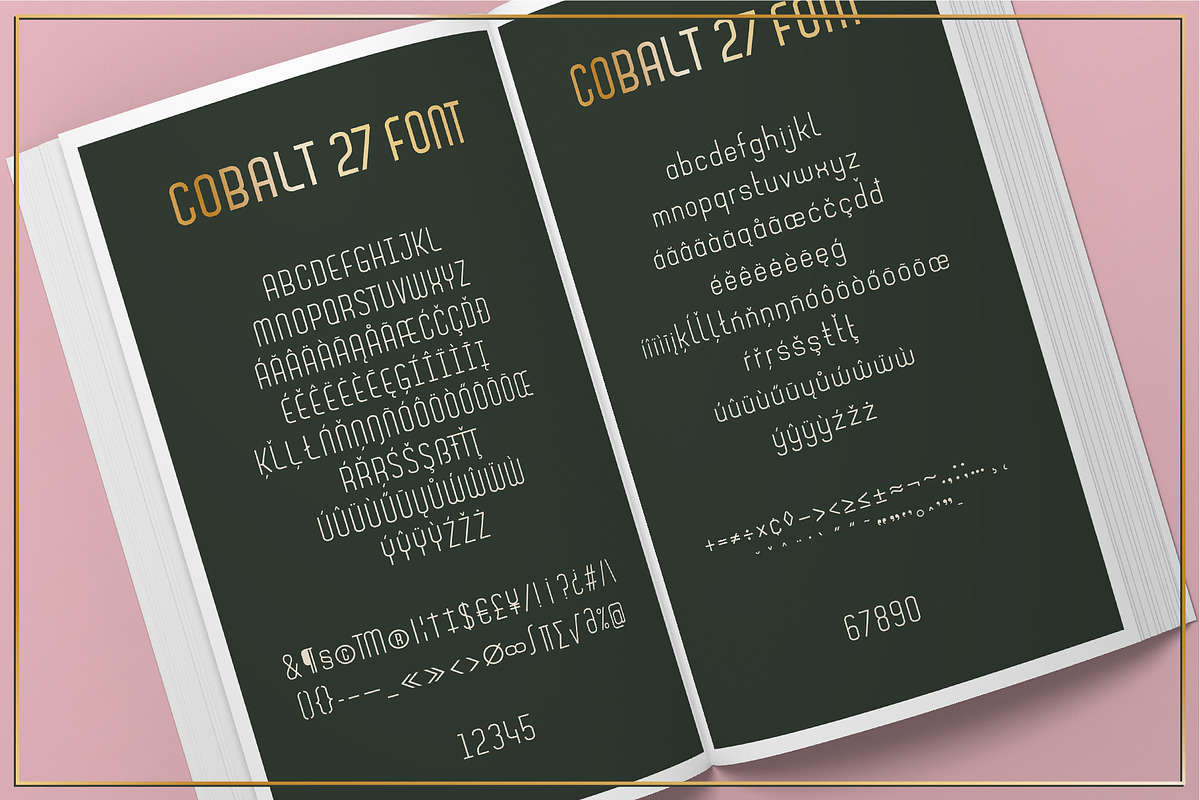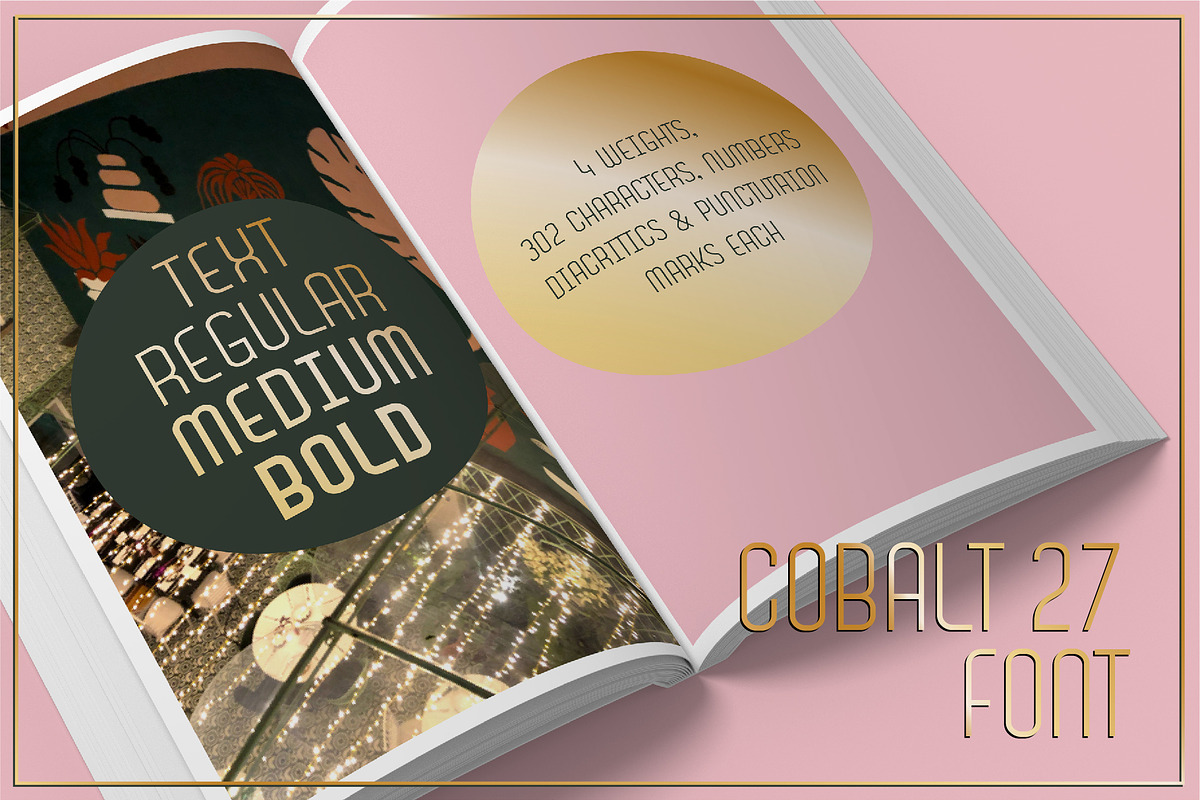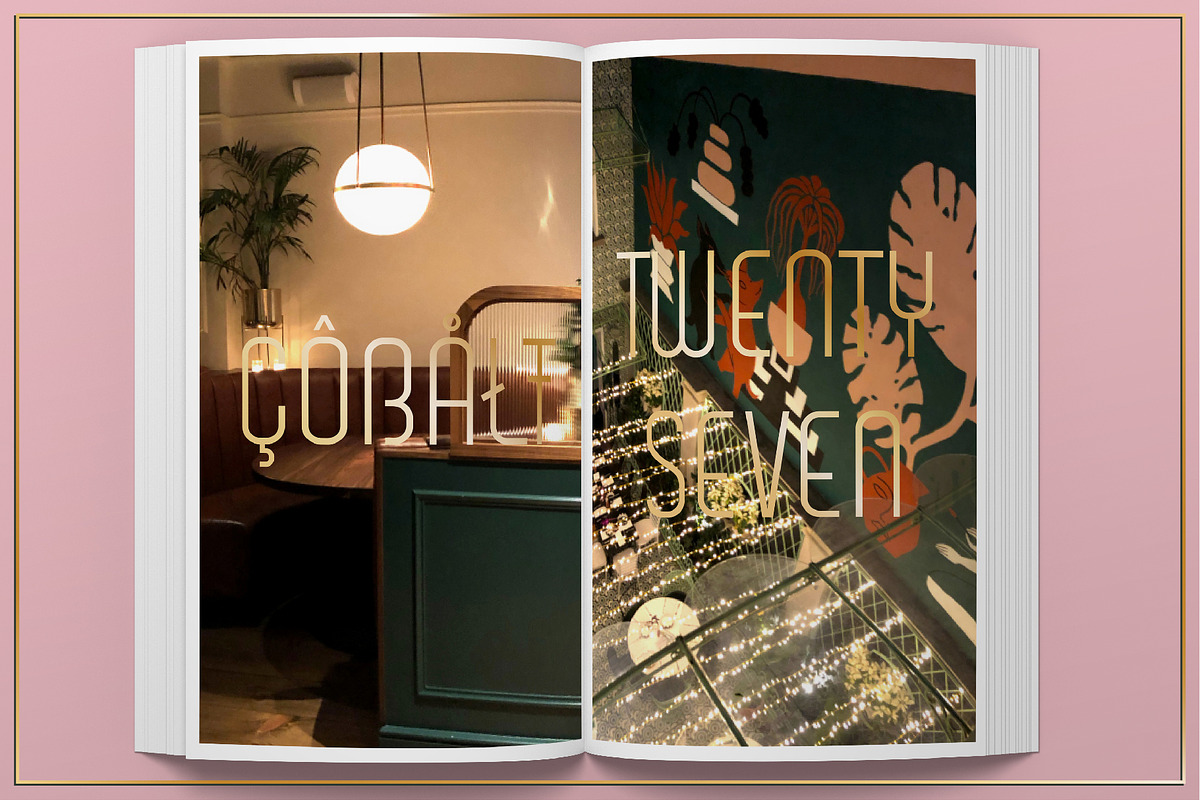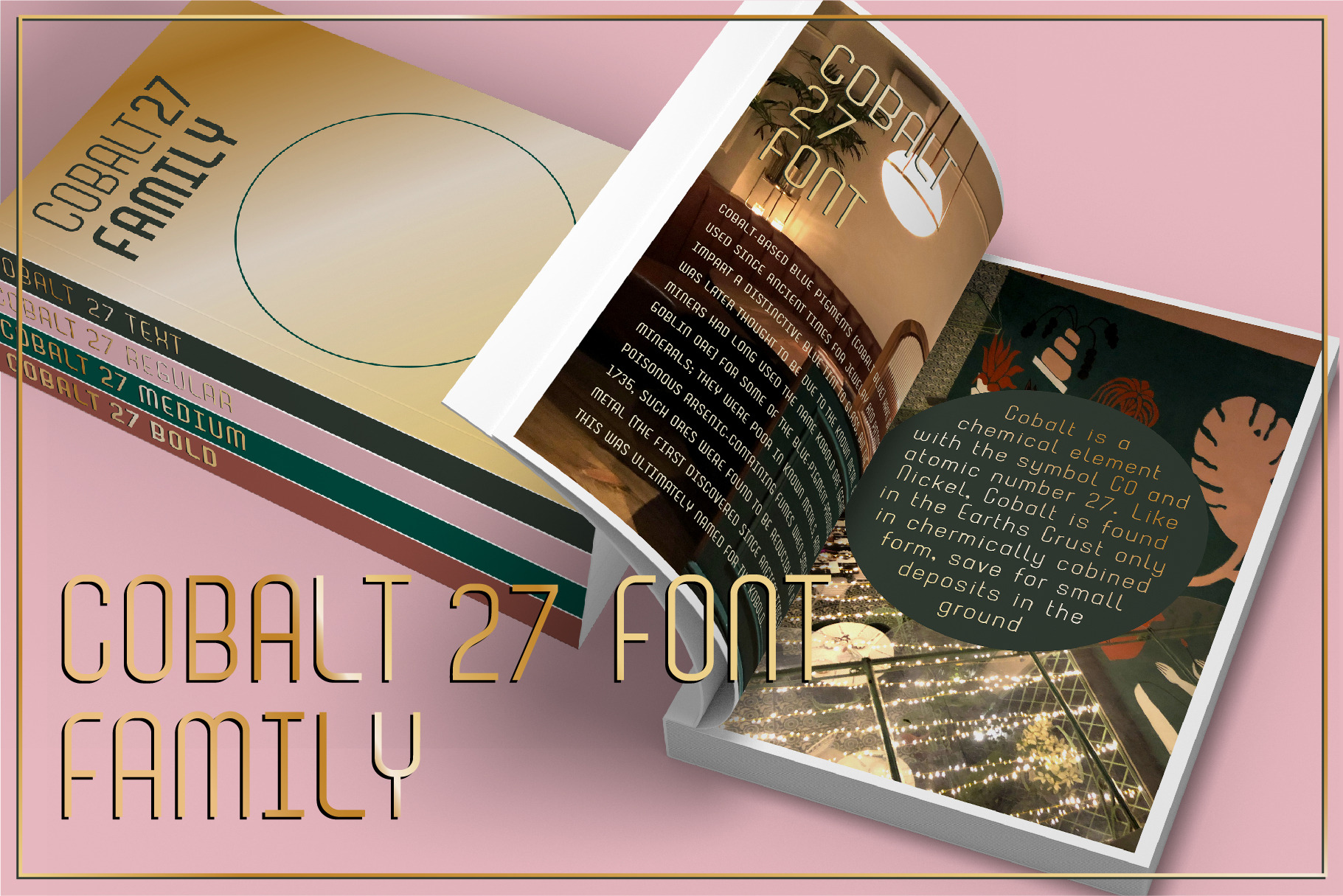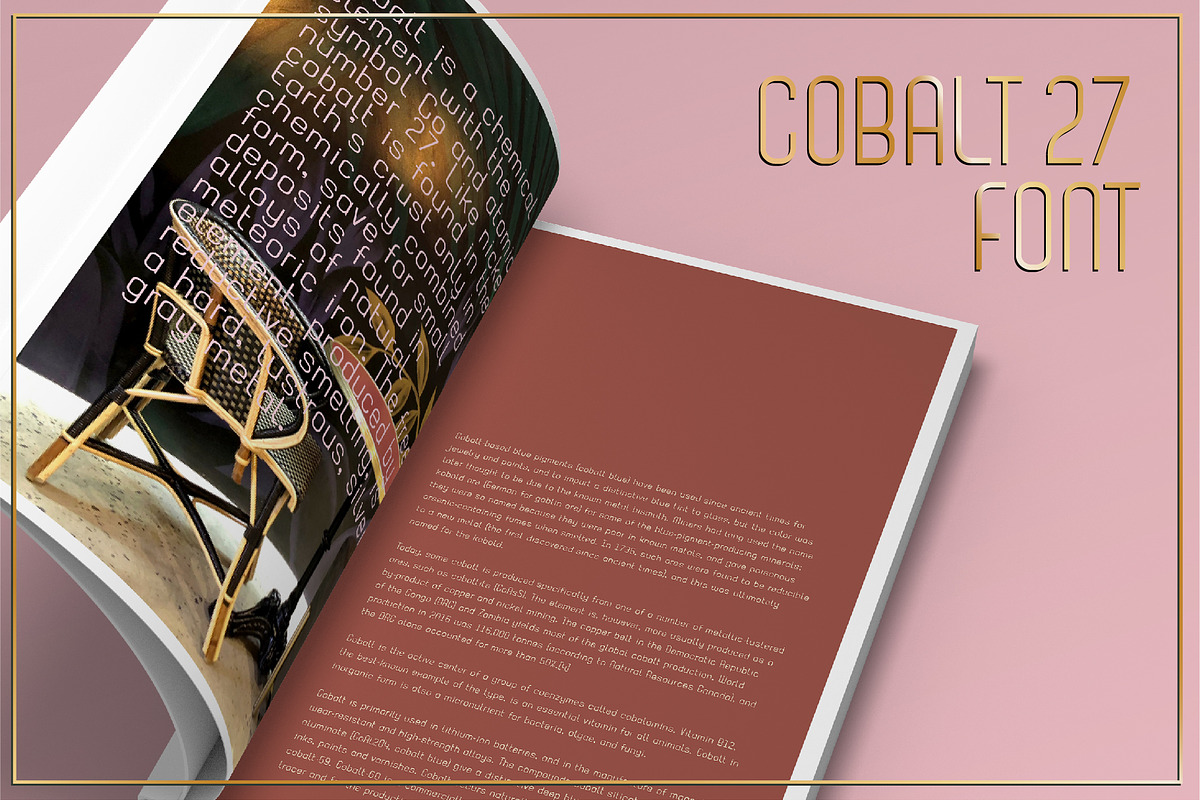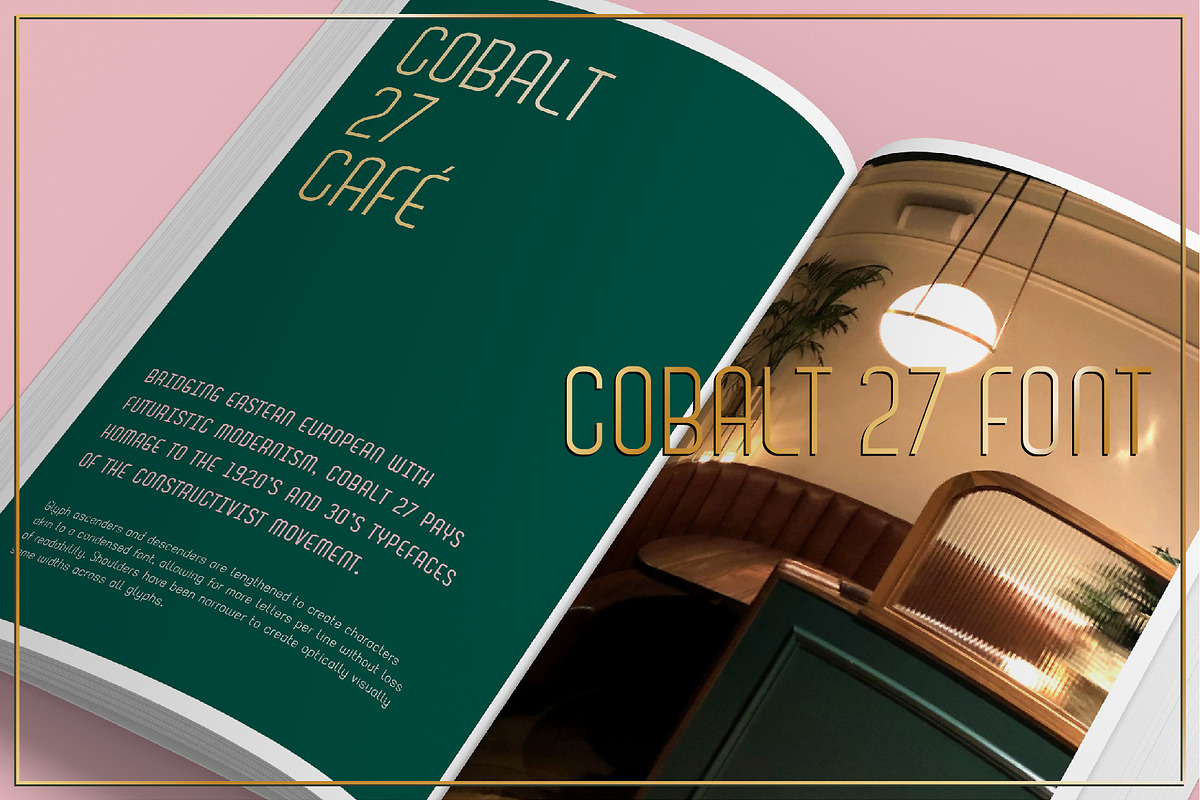
Cobalt 27 Modernist Font Family
The 1920s meets Mid-century Modernism with this elegant, chic, upright, rounded typeface. Upper Case characters work perfectly for Headers and Titles, while the lowercase has been designed to work well in body copy. Perfect for when a design calls for a little panache.
Cobalt 27 typeface family offering an array of different weights, alternates, and bolder headers with a total of 307 glyphs. Individual Fonts are available as stand-alone purchases.
How to use Cobalt 27
BOLD - designed for primary headers, display or larger applications.
MEDIUM - to be used as in place of Bold when a lighter version is needed, or a secondary header when combined with other weights.
REGULAR - Can be applied to all applications - mainly designed for lighter weight body and header treatments.
TEXT - similar to Regular but with shorter ascenders and descenders where shorter leading is required.